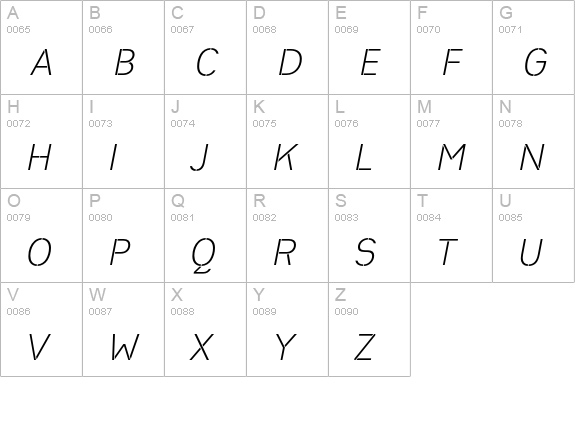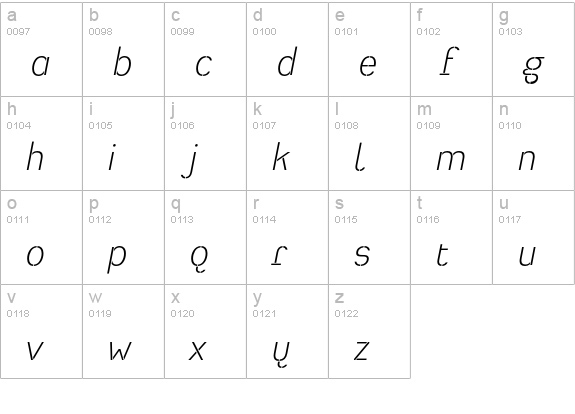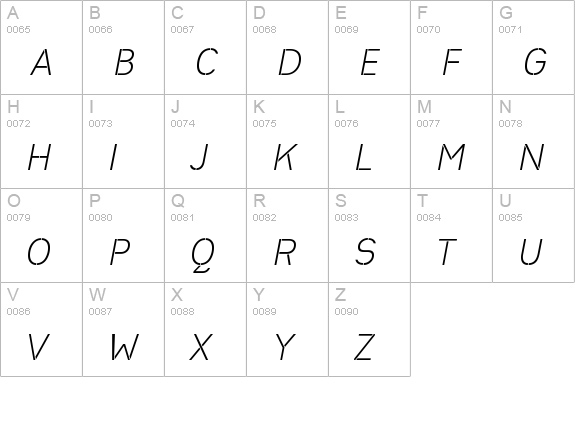
Heimat Stencil Light Italic Font Details
Heimat Stencil Light Italic is a refined, elegant, italic variant in the Heimat typeface family \xE2\x80\x94 well suited to elegant body text, refined sub-headings, and luxury branding.
Heimat Stencil Light Italic font is a modern and stylish typeface that exudes sophistication and elegance. Its sleek, stencil design adds a contemporary touch to any project, making it perfect for branding, headlines, and display purposes. The light italic weight of this font provides a delicate and refined appearance, creating a harmonious balance between boldness and subtlety. What makes Heimat Stencil Light Italic font even more appealing is that it is available for free download at FontsMarket.com. This means you can easily access this high-quality typeface to enhance your designs without any cost. Don't miss out on the opportunity to elevate your projects with the timeless charm of Heimat Stencil Light Italic font. Download it now and start creating stunning visuals that stand out from the rest.